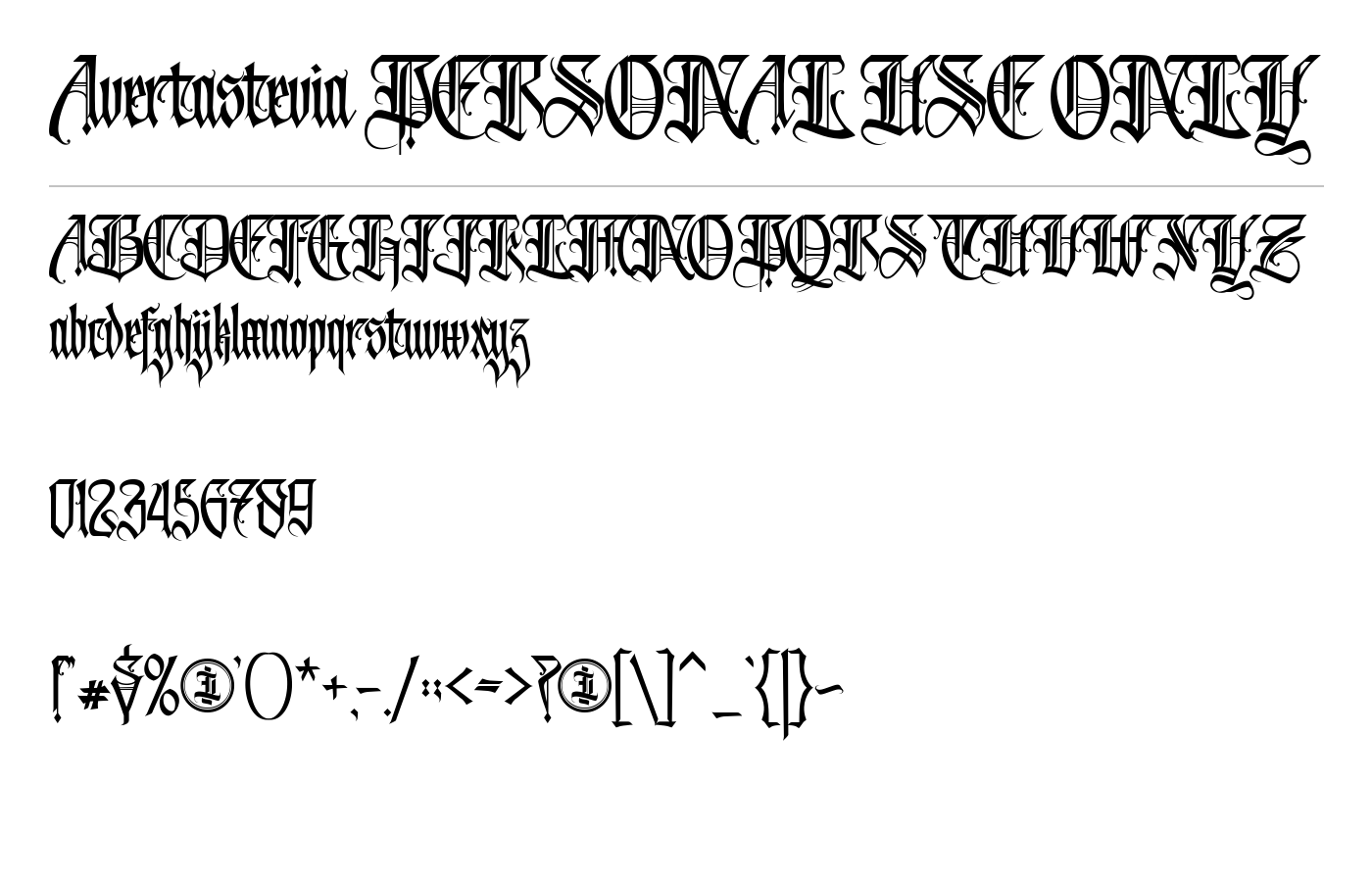
Avertastevia is an ornate blackletter serif font featuring highly decorative, sharp strokes and intricate detailing that evoke a medieval Gothic aesthetic. Its condensed letterforms and dramatic contrast between thick and thin lines make it ideal for bold, statement designs such as logos, posters, and invitations that aim to convey a sense of historical elegance and dark sophistication. This font works best for headline use where its detailed character shapes can shine without compromising readability.
Avertastevia PERSONAL USE ONLY Font
About Avertastevia PERSONAL USE ONLY Font